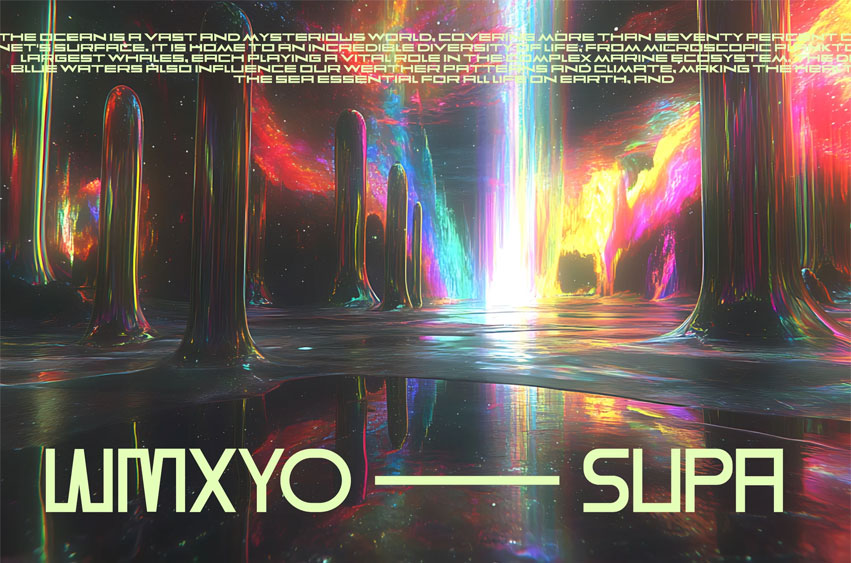
Wmxyo Supa Font
Wmxyo Supa Font Though inherently tech-focused and sleek.
Its carefully modulated strokes carry an undercurrent of emotional weight, perfect for the title cards of a tense, near-future thriller.